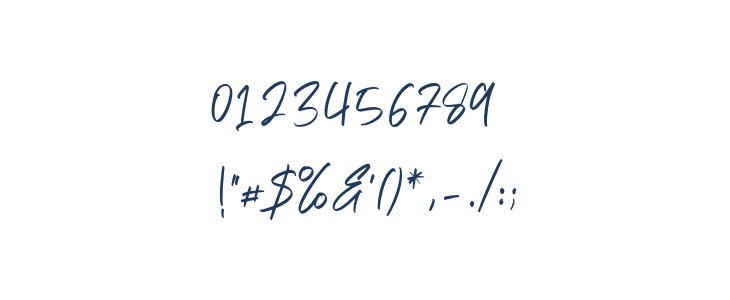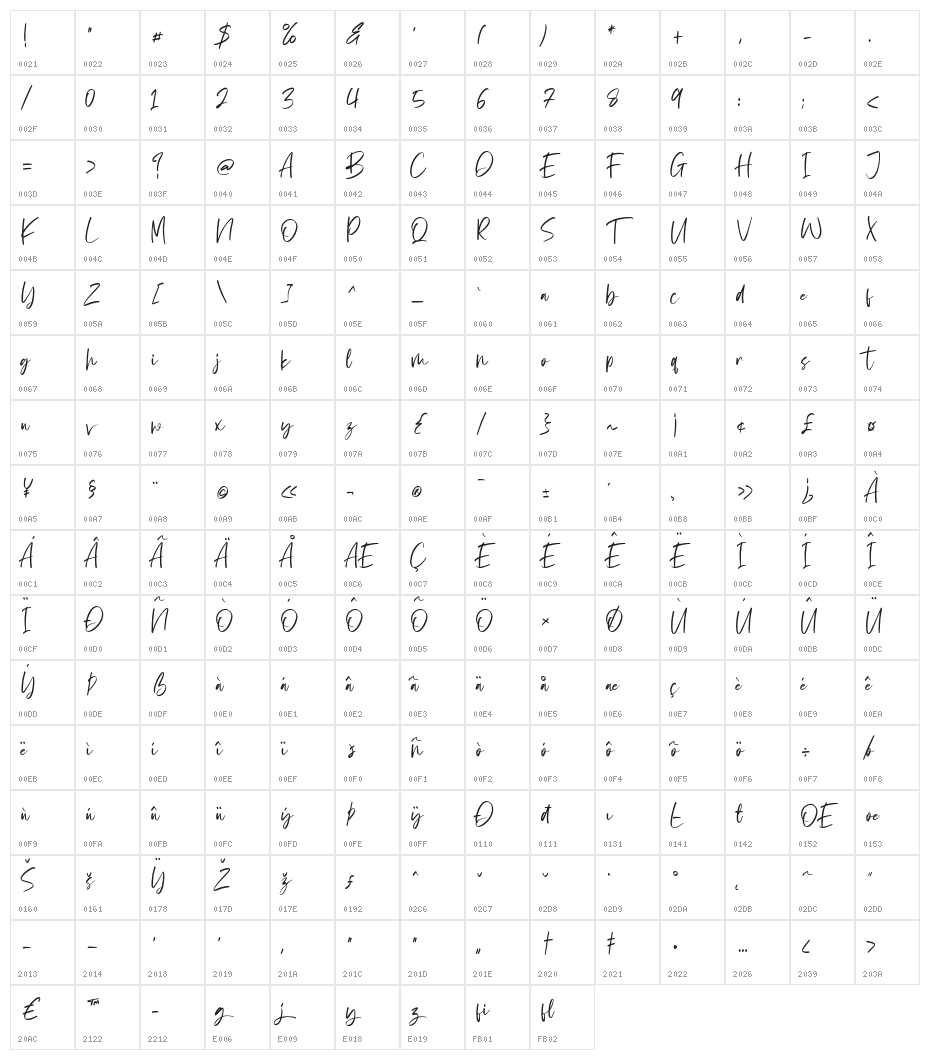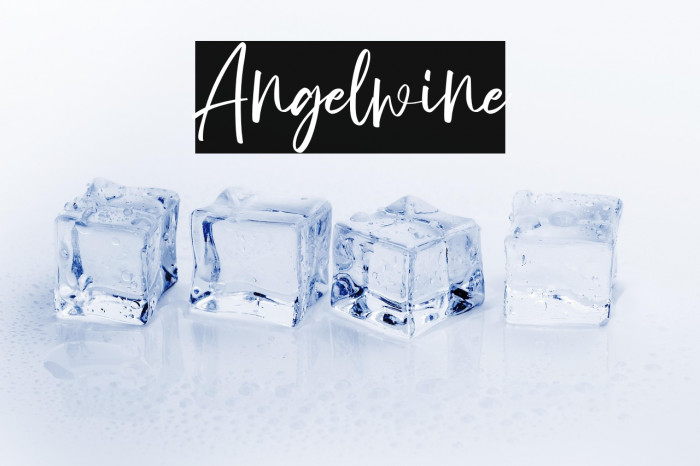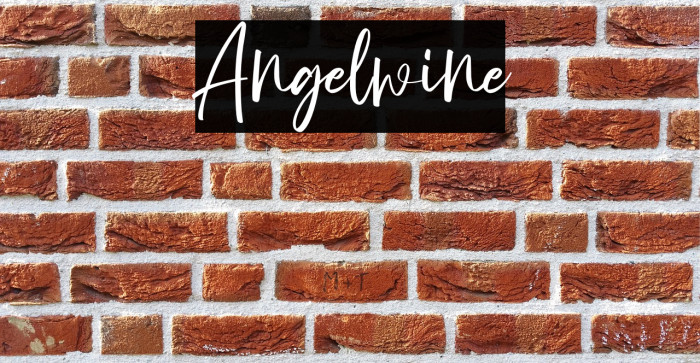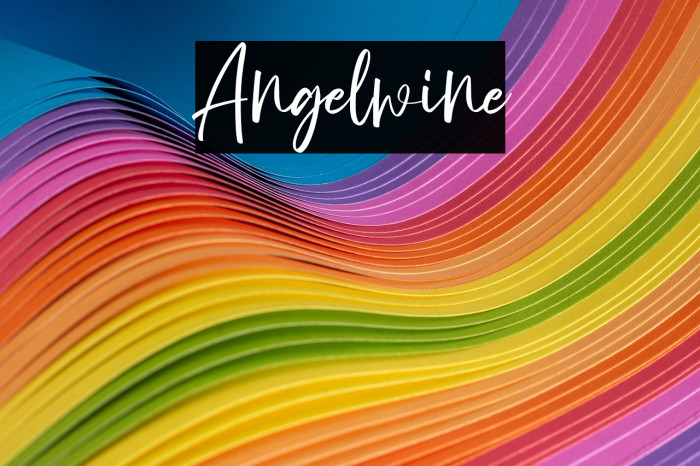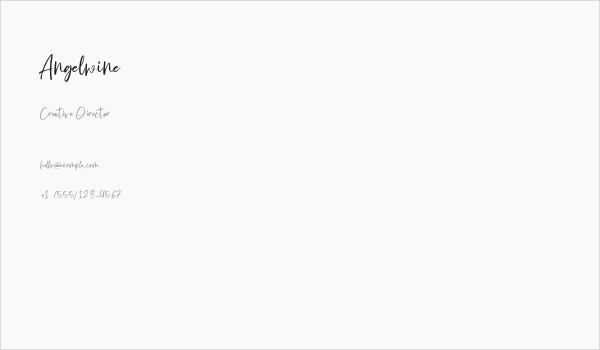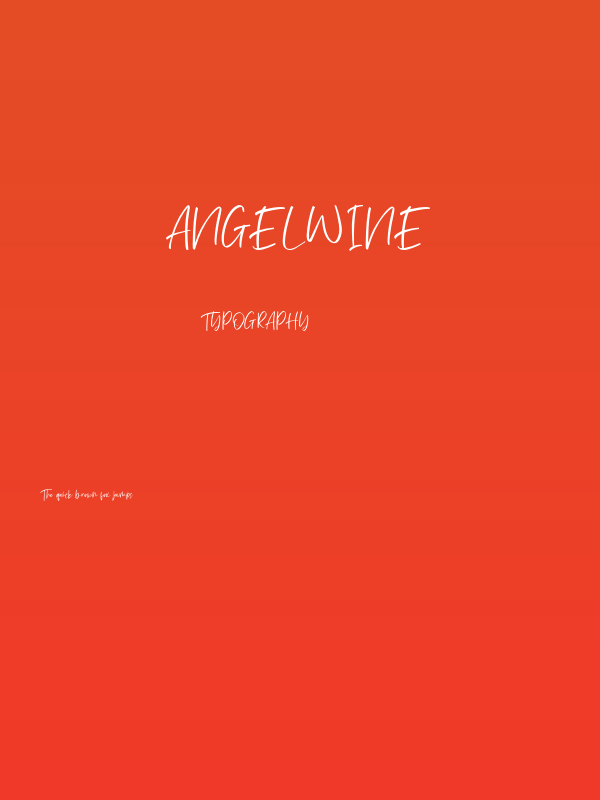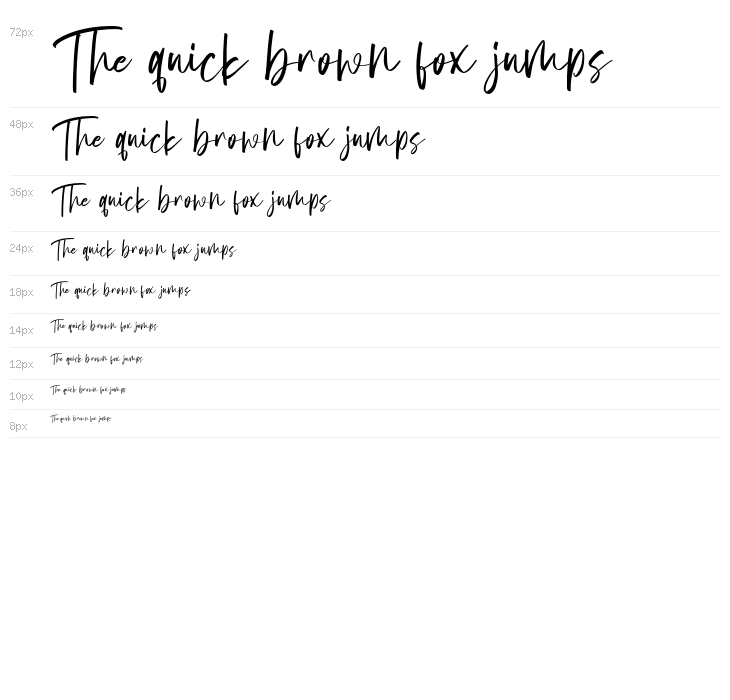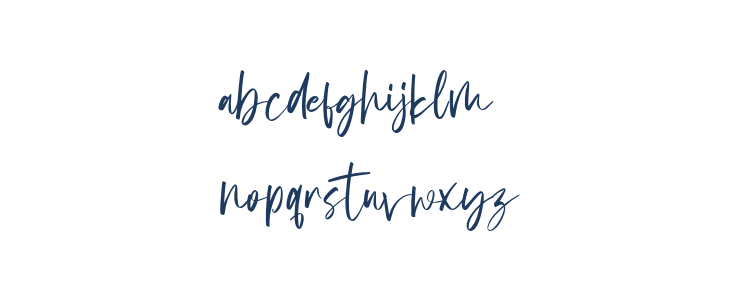
Angelwine Font
Angelwine Description
This font exudes a casual, handwritten style with a modern flair. The letters are fluid and dynamic, giving a sense of movement and personality. The uppercase characters are bold and expressive, while the lowercase letters maintain a consistent flow, enhancing readability. Numbers and special characters are crafted with the same attention to detail, ensuring a cohesive look across all text elements. The strokes vary in thickness, adding a touch of elegance and sophistication. This font is perfect for projects that require a personal touch, such as invitations, greeting cards, or branding materials.